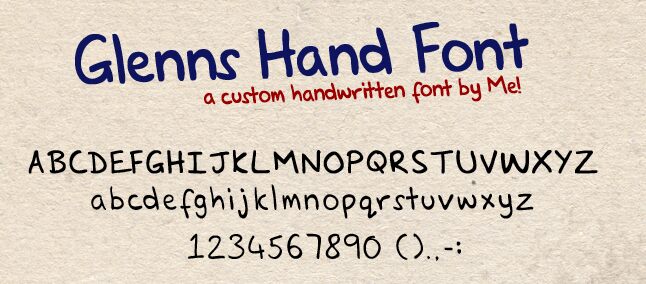
Glenns HandRegular
This is a font I have been working on... I use it on my website to give it that personal touch because after all this is my hand writing lol. Hence the name Glenns Hand...